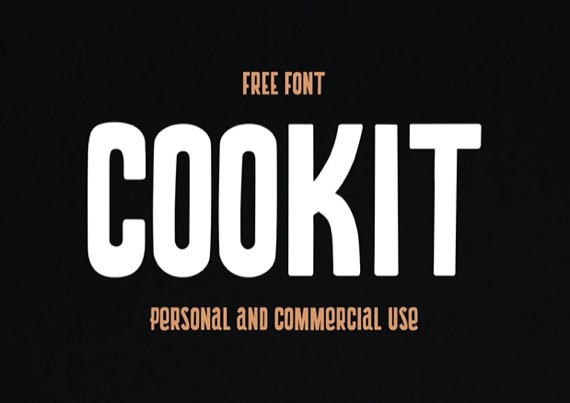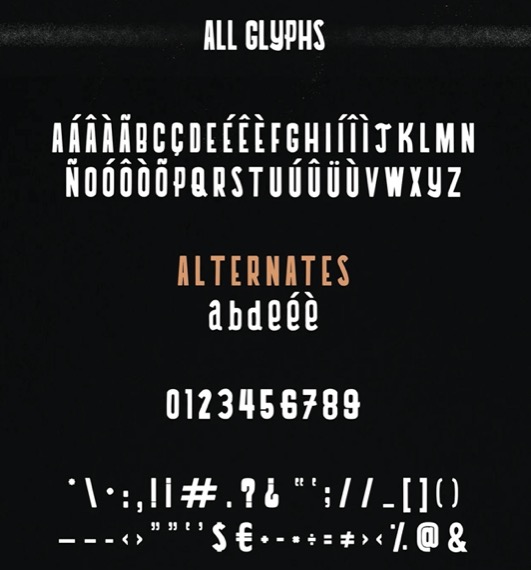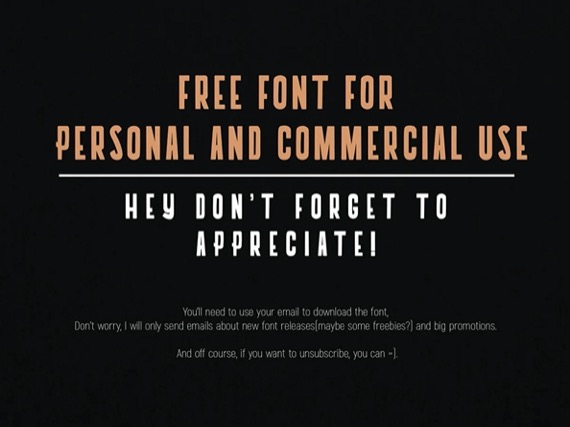
Cookit is a sensual and chic sans serif font that was created by Sérgio Haruo and released by Hamitol. Whether you’re looking for a classic display font for a logo, t-shirt, poster, or even a large typography installation, it is here to help.
Cookit Display Sans Font